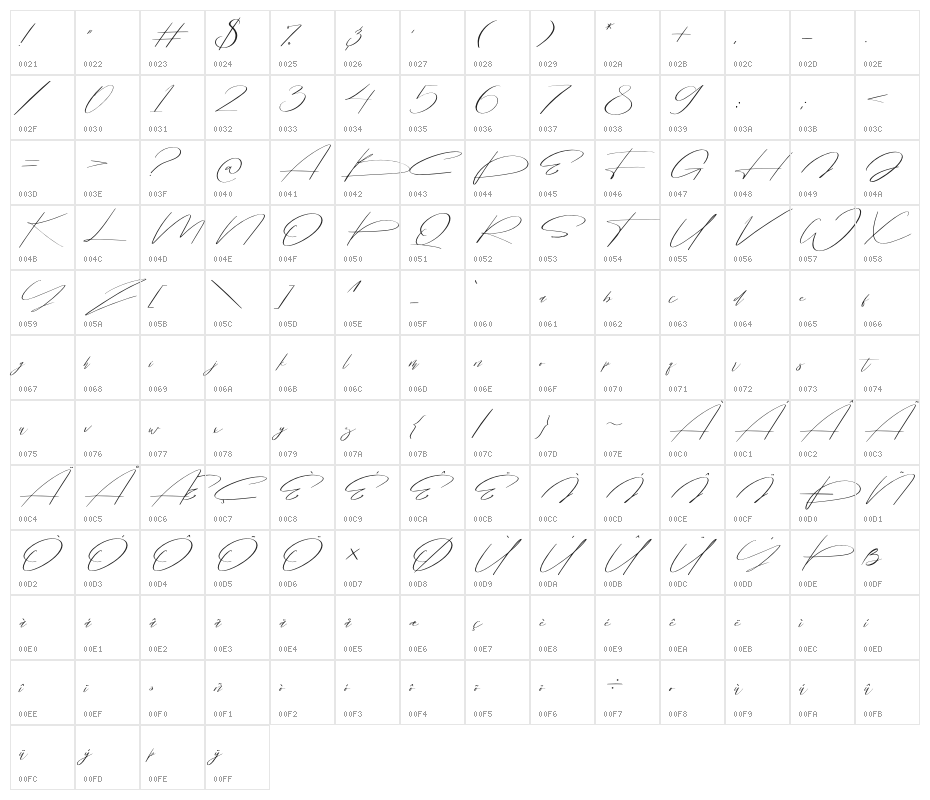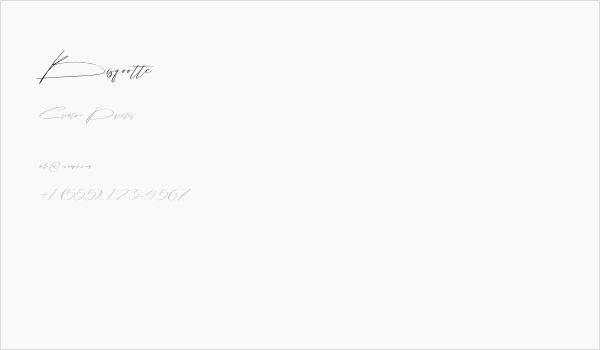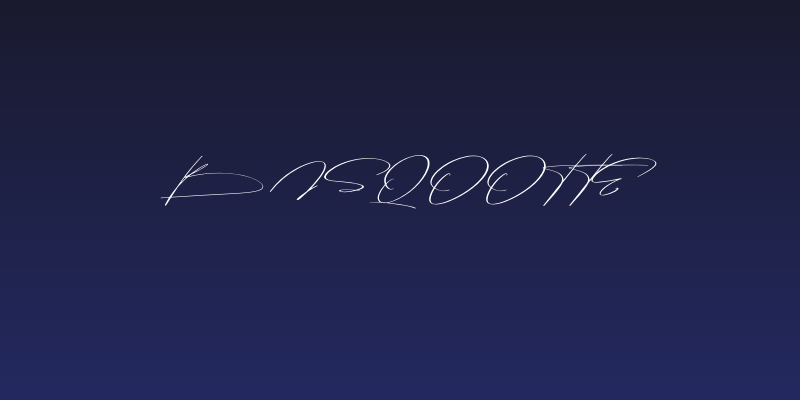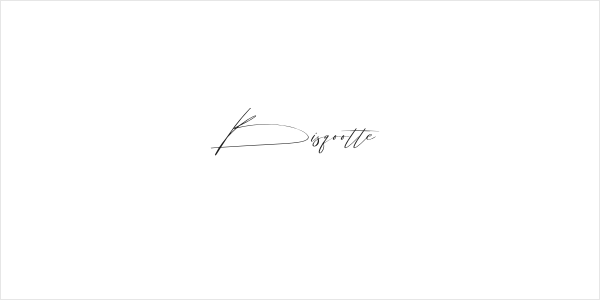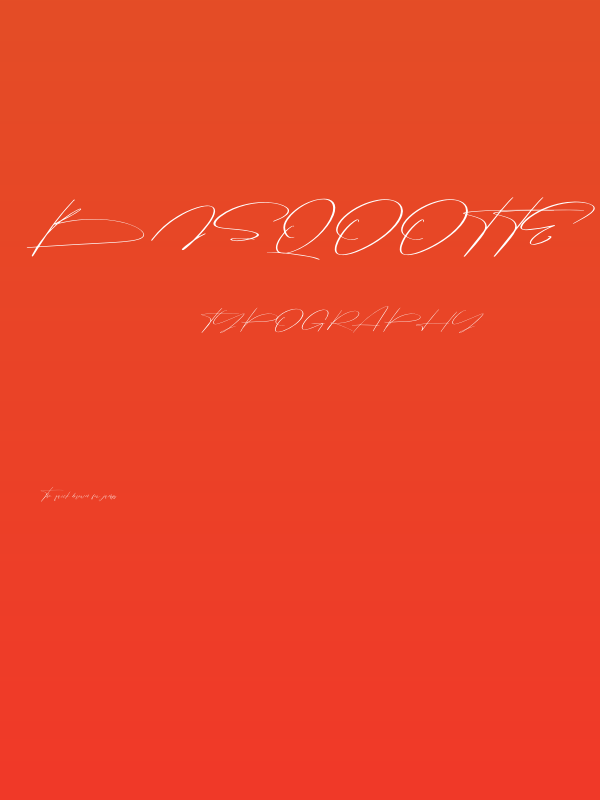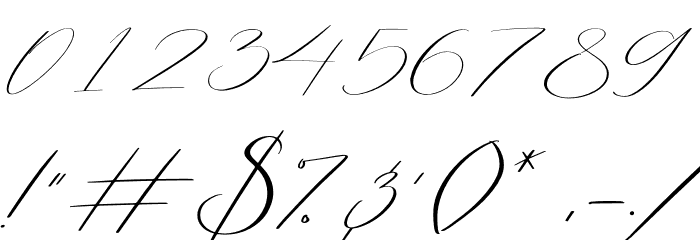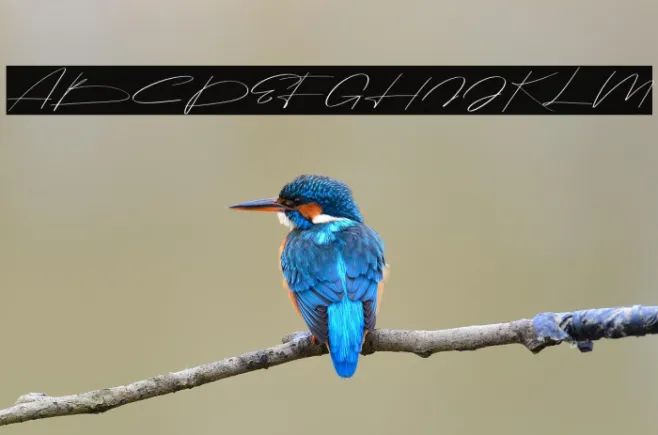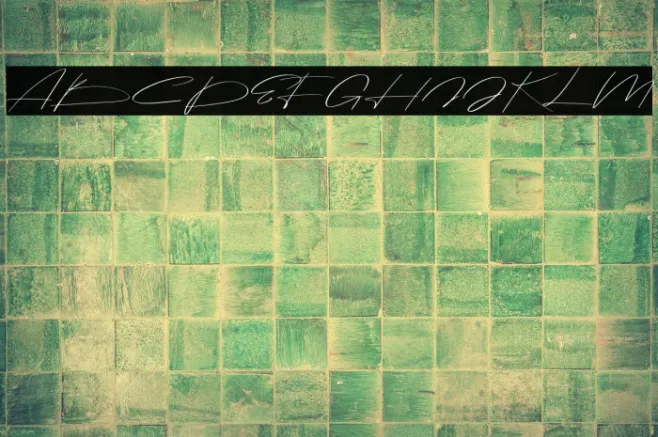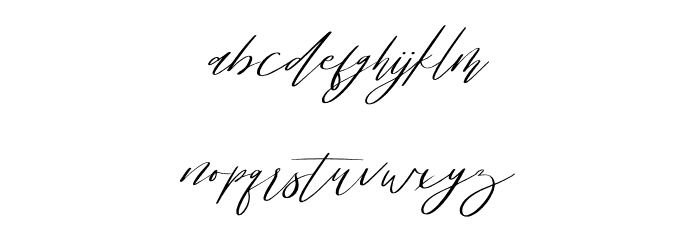
Bisqootte Font
Bisqootte Description
This font exudes elegance and sophistication with its fluid, cursive style. The letters are gracefully connected, giving it a seamless and flowing appearance. The uppercase letters are tall and slender, while the lowercase letters have a more rounded and playful form. The numbers maintain the same elegant style, making them suitable for a variety of uses. The special characters are designed to complement the overall aesthetic, ensuring consistency throughout. This font is perfect for projects that require a touch of class and refinement.
| Proposed Projects | Ideal for wedding invitations, luxury branding, elegant logos, and high-end product packaging. |